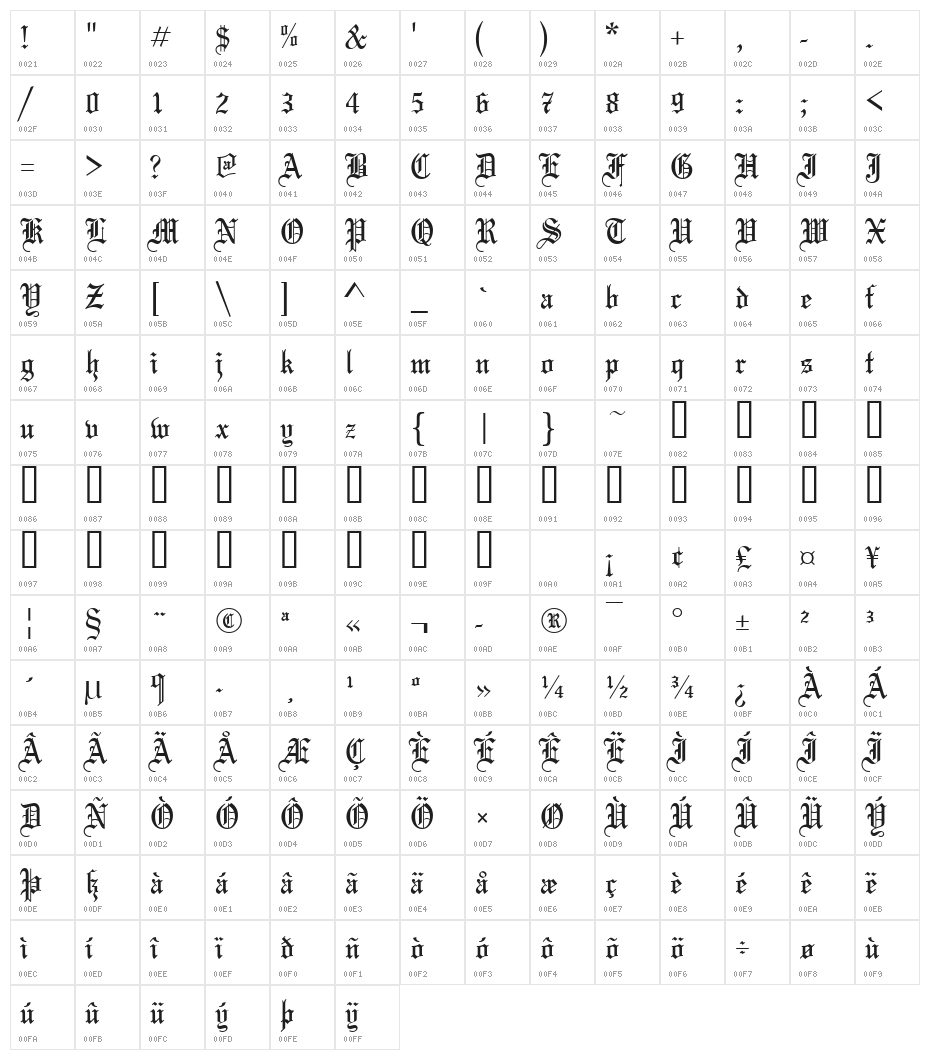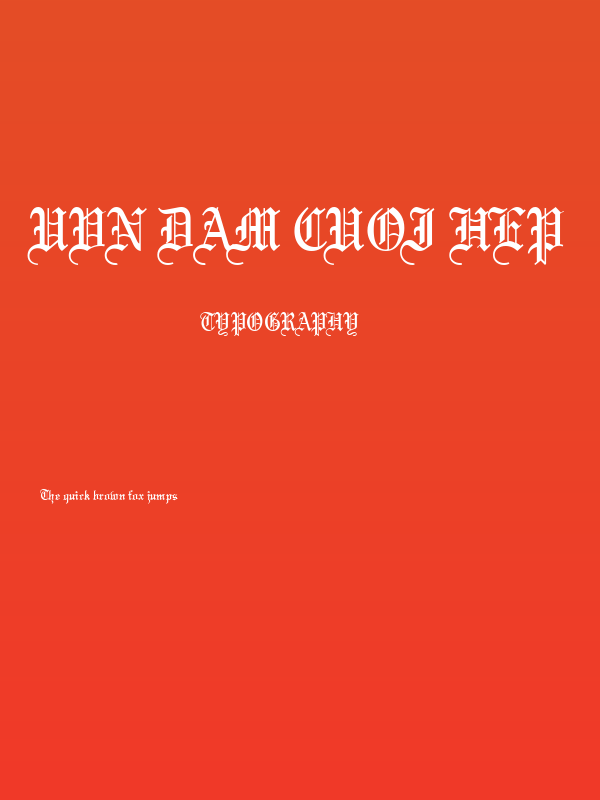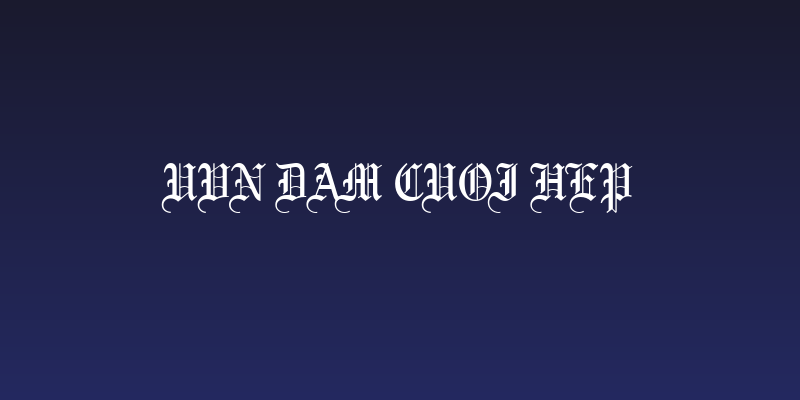
UVN Dam Cuoi Hep Font
UVN Dam Cuoi Hep Description
This font exhibits a classic blackletter style, characterized by its ornate and intricate design. The letters are embellished with sharp, angular strokes and decorative flourishes, giving it a historical and gothic appearance. The uppercase letters are particularly elaborate, with extended serifs and intricate details, while the lowercase letters maintain a consistent style with slightly less ornamentation. The numerals are bold and follow the same stylistic cues as the letters, ensuring a cohesive look. Special characters are equally ornate, fitting seamlessly into the overall aesthetic. This font is reminiscent of medieval manuscripts and traditional calligraphy, offering a sense of elegance and formality.
| Use Case | Headlines, Logos, Decorative text |
| Proposed Projects | Ideal for projects requiring a historical or gothic touch, such as wedding invitations, certificates, book covers, or branding for luxury products. |